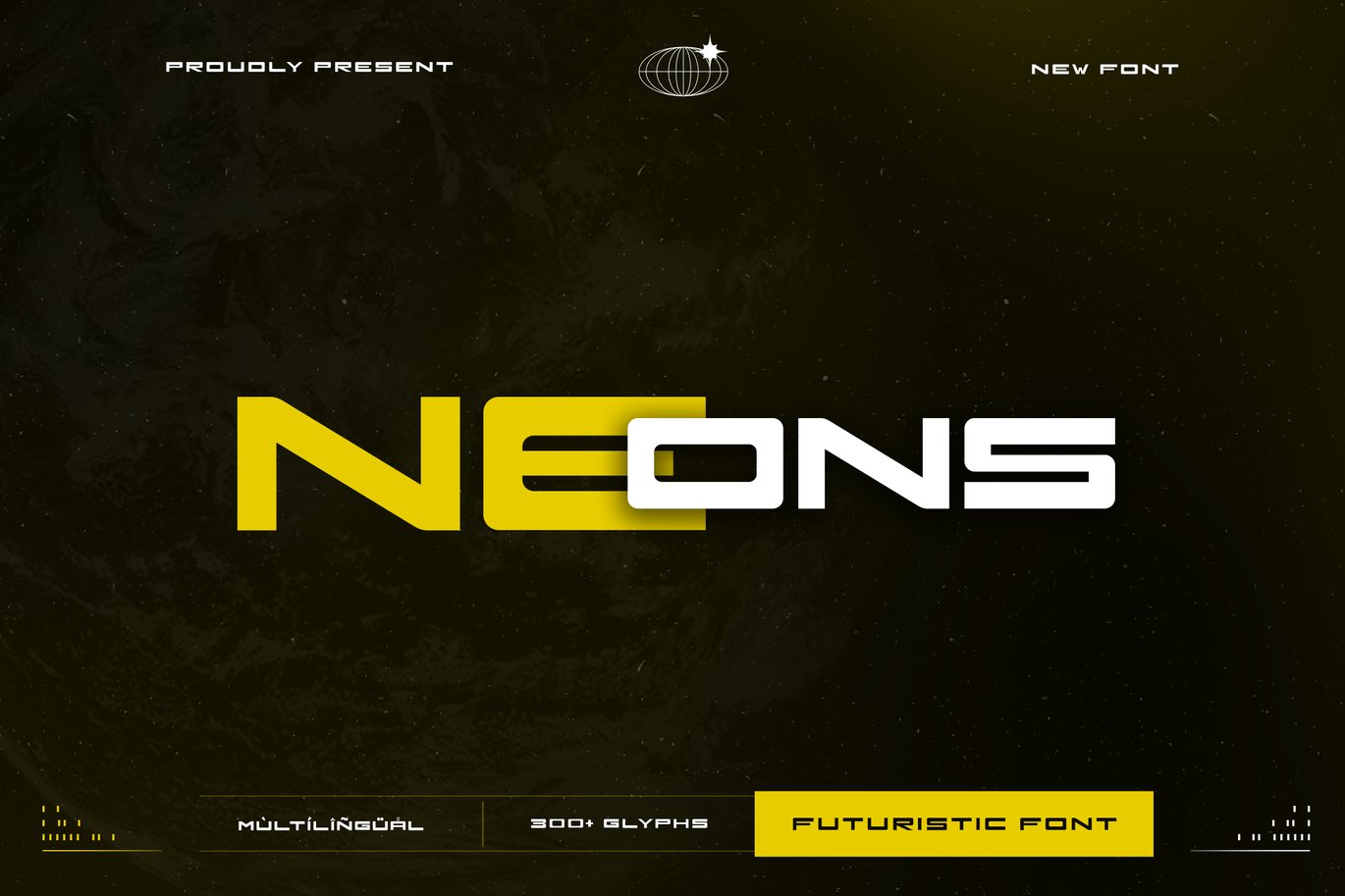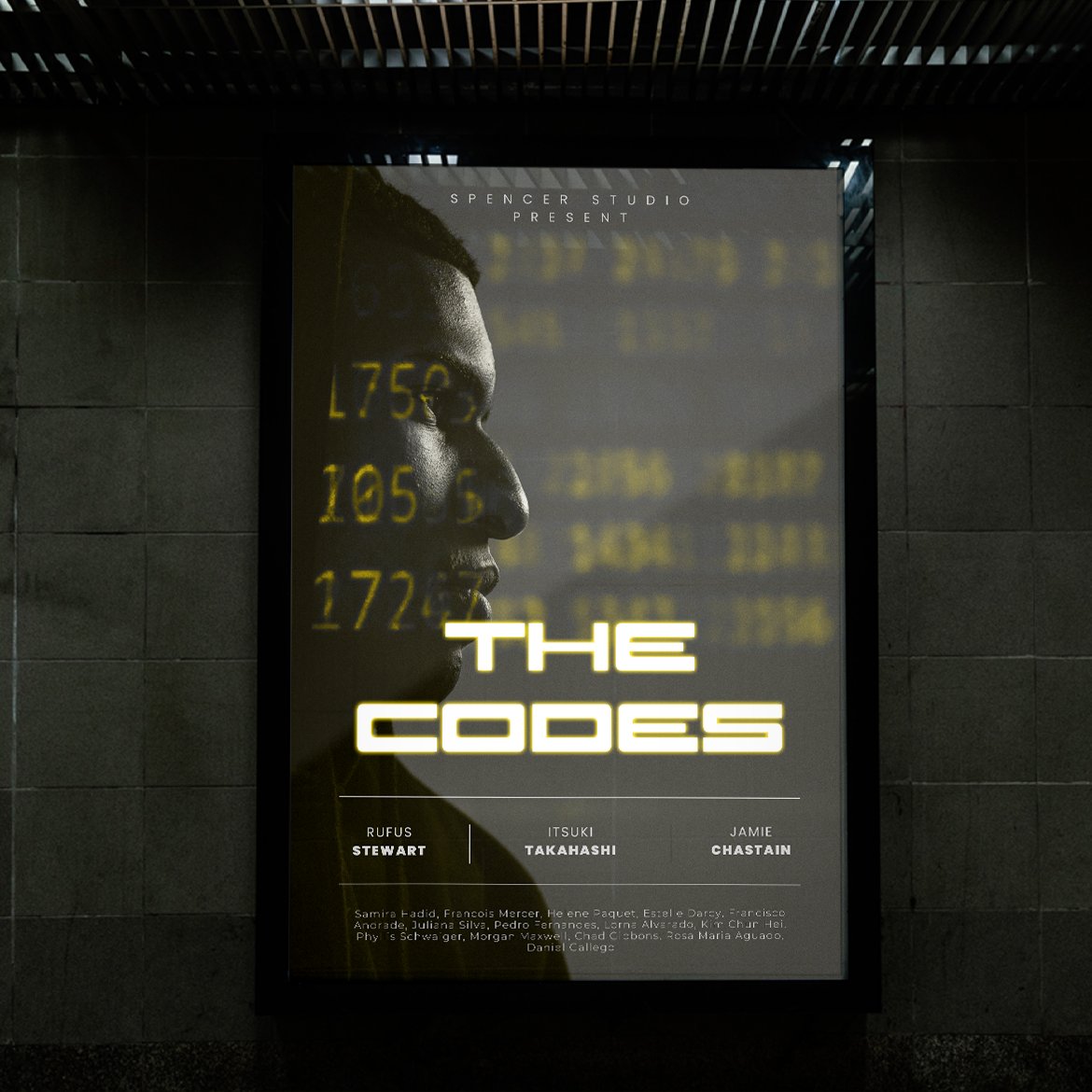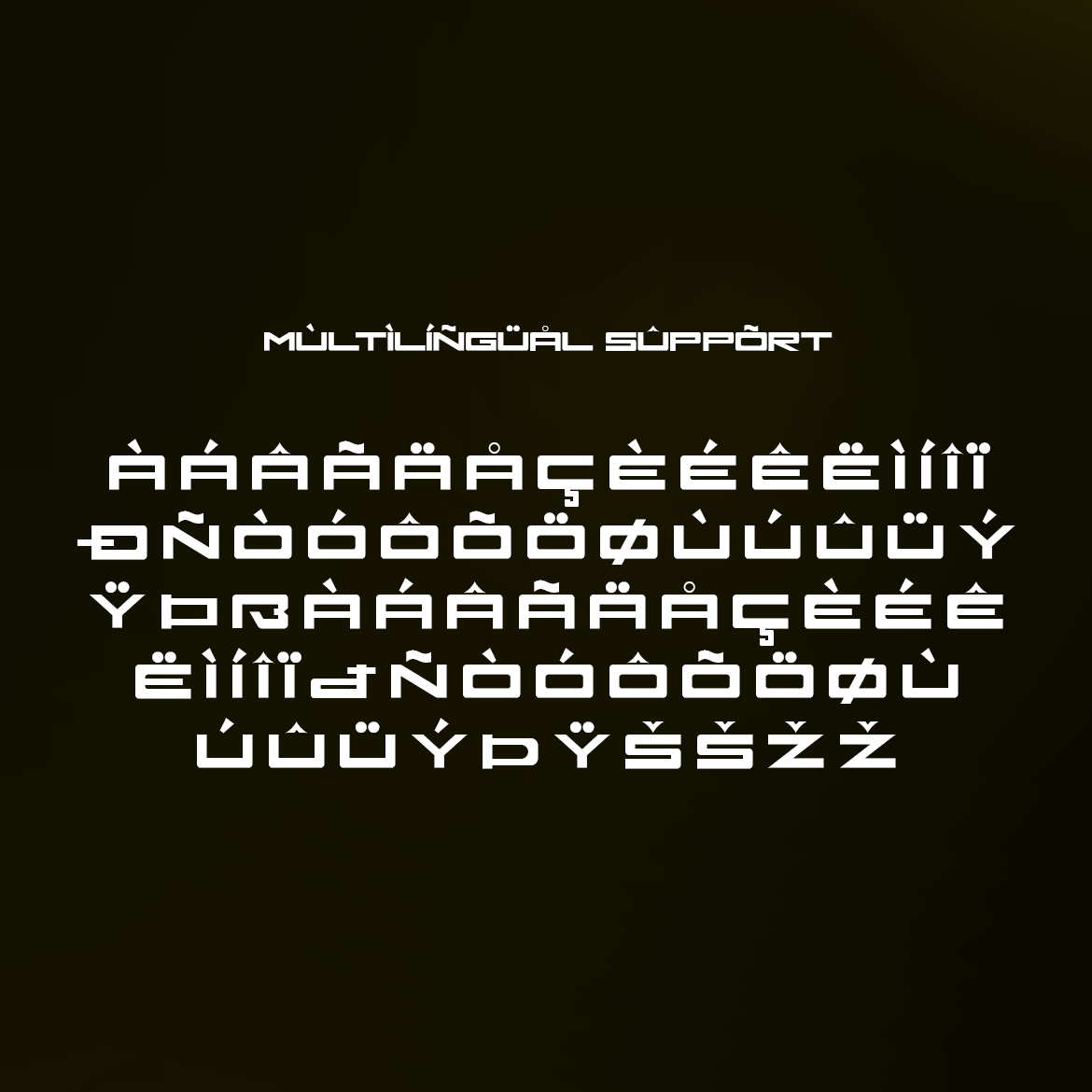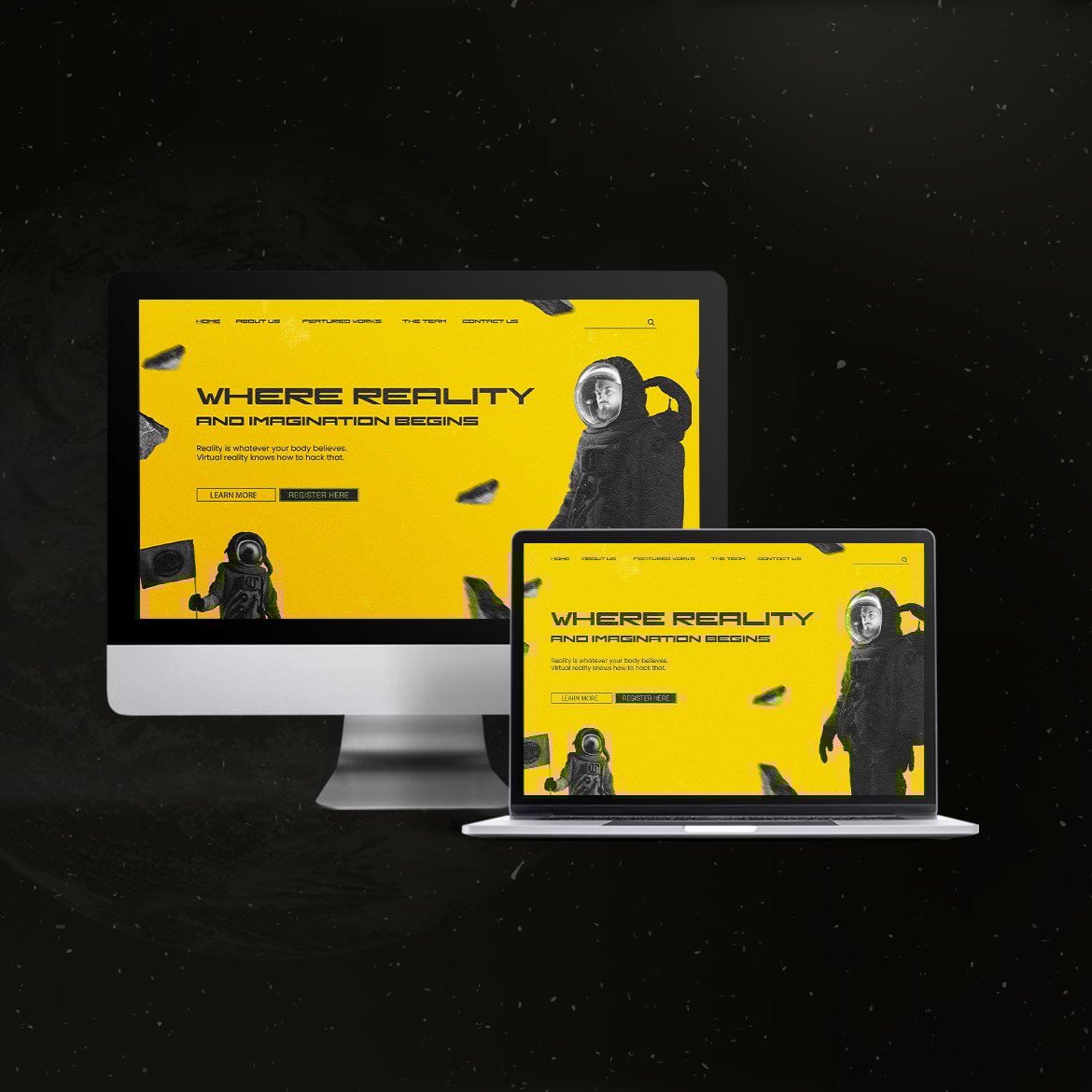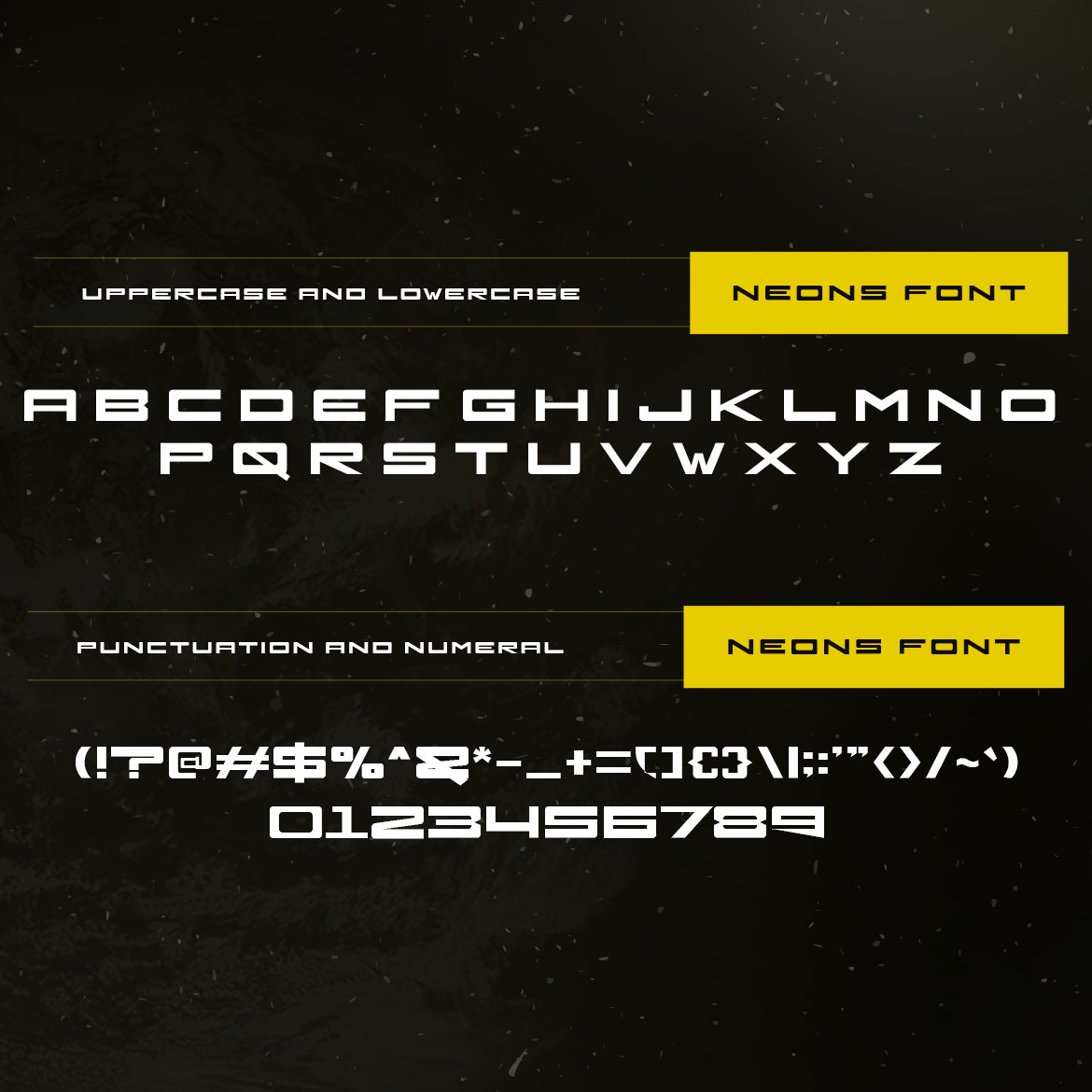
Neons – A Futuristic Font
Neons is a sleek and futuristic font designed to bring a cutting-edge look to your design projects. With its sharp lines and modern aesthetics, Neons is perfect for sci-fi themes, tech branding, digital interfaces, and innovative advertising. This font captures the essence of modern technology, adding a sense of forward-thinking design to your work.
Crafted with precision, Neons features dynamic characters that offer excellent readability and visual impact. Its bold design makes it ideal for headlines and display text, providing a striking and memorable presence. The font’s versatility allows it to adapt seamlessly to various design contexts, from digital screens to printed materials, making it a valuable asset for any designer aiming to create futuristic and impactful visuals.
Elevate your design projects with Neons, a font that embodies the spirit of innovation and modernity. Its unique style and adaptability make it an essential addition to any designer’s toolkit for crafting bold and visionary designs. Enhance your work with Neons and experience the power of futuristic typography.